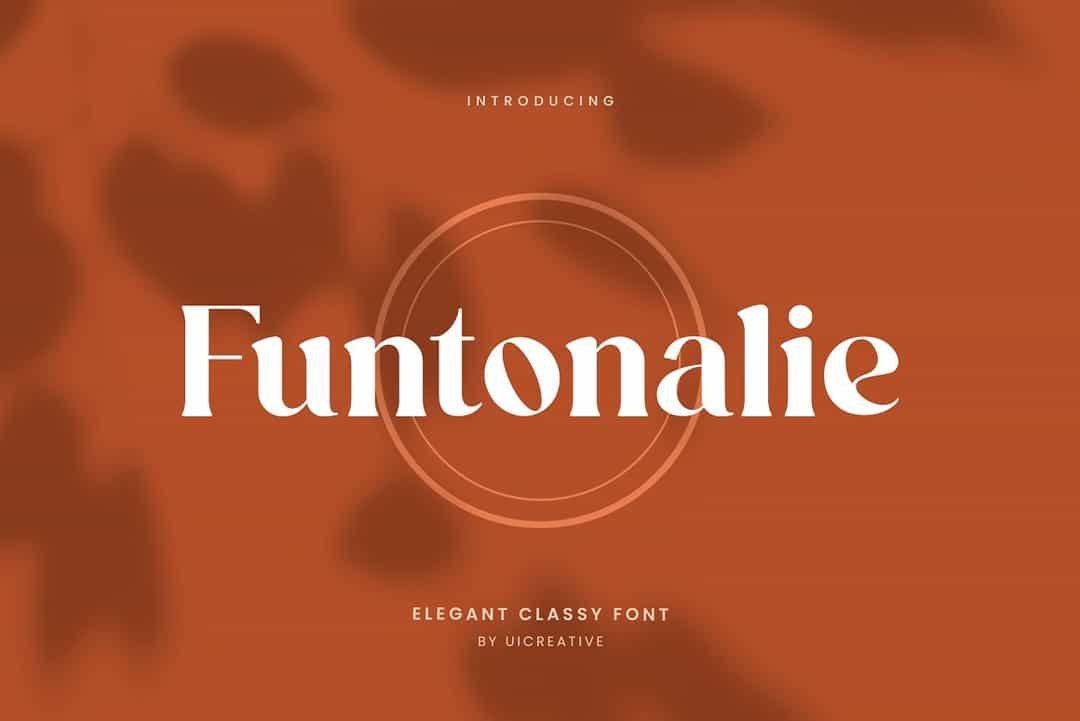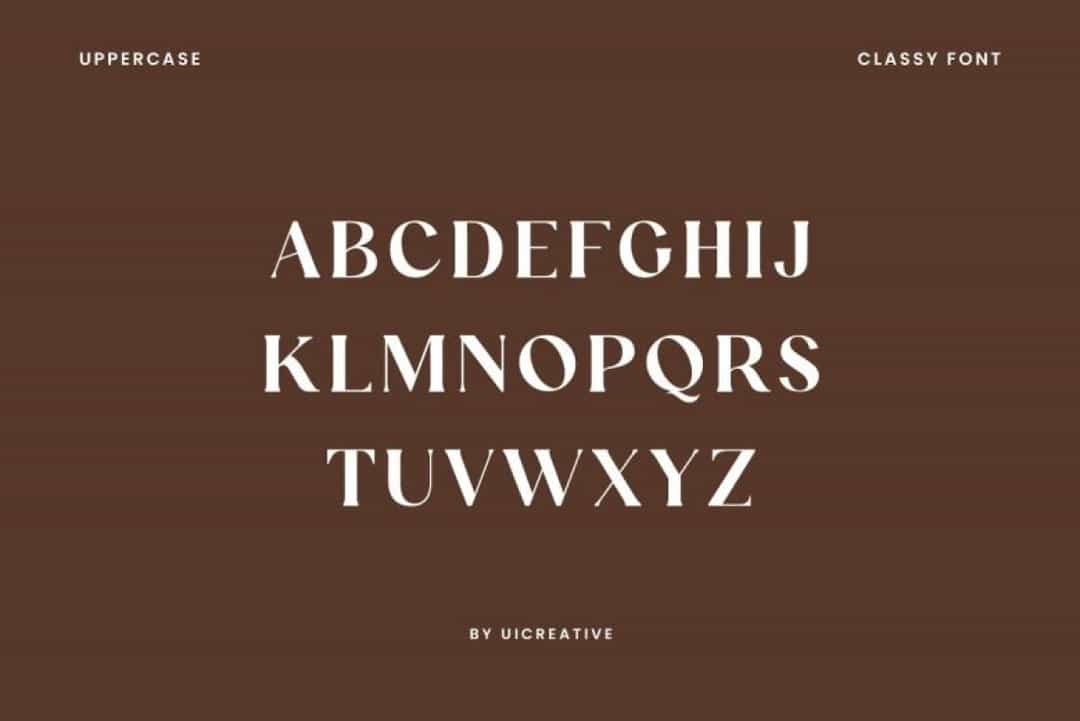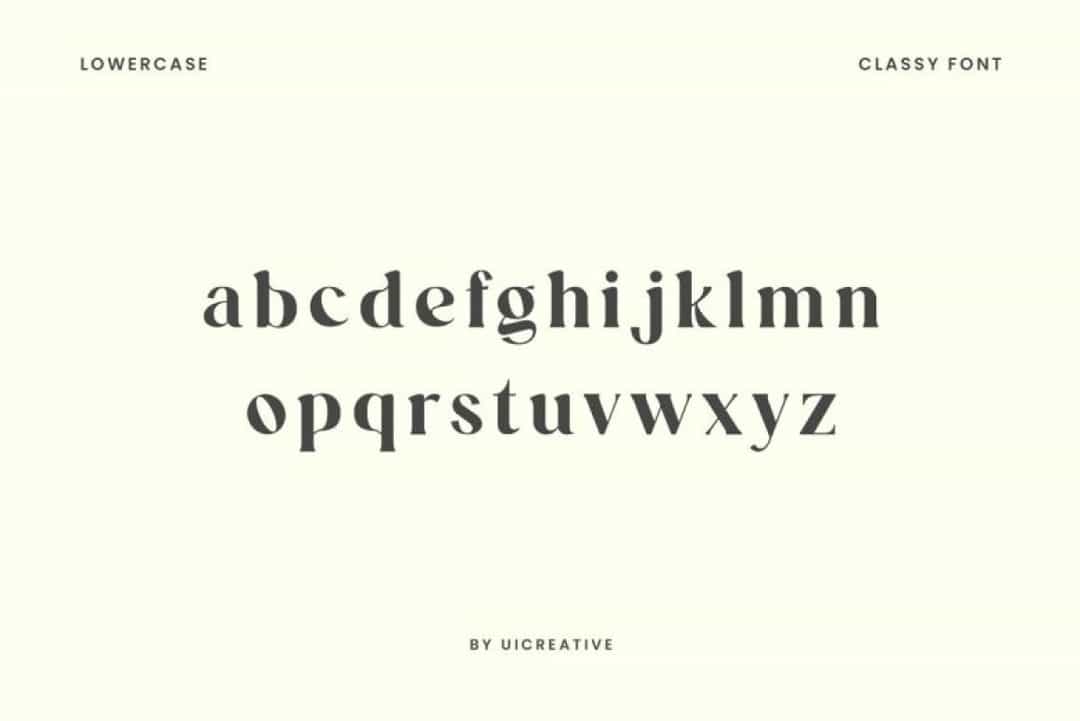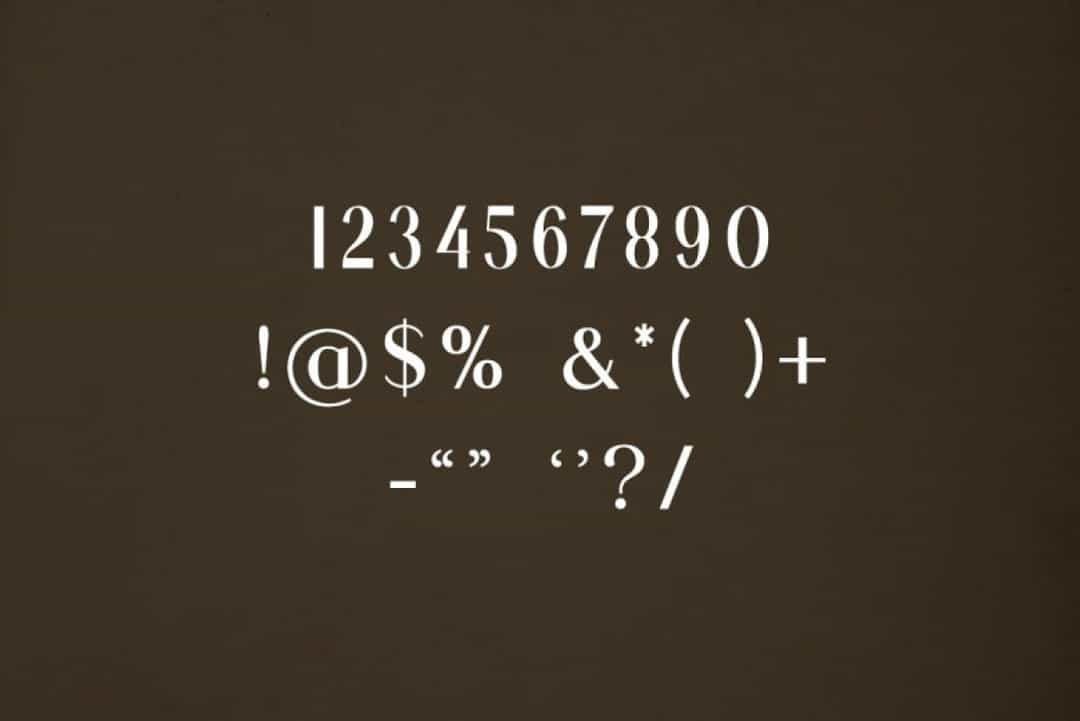
Funtonalie is an elegant and classy serif typeface. Perfect for stationary designs, signatures, logos wedding, typography quote book covers or magazine covers as well as headers on websites or clothing packaging designs it also makes a striking statement of sophistication and contemporariness.